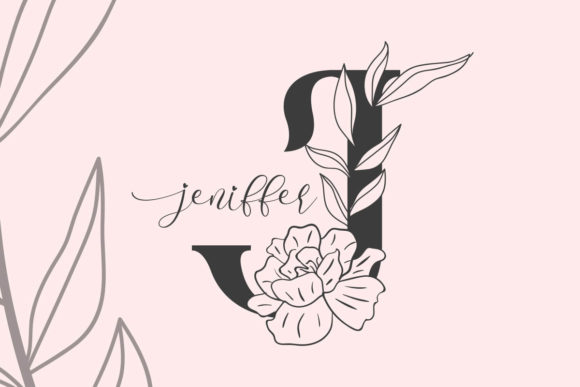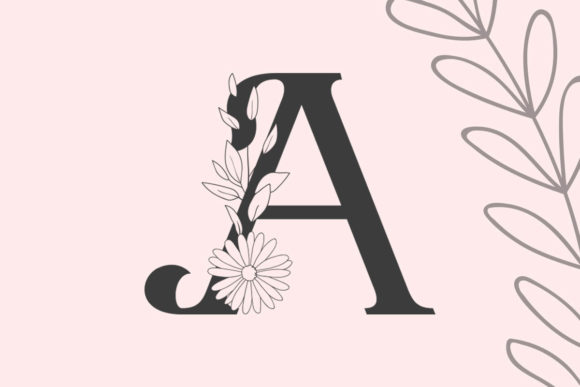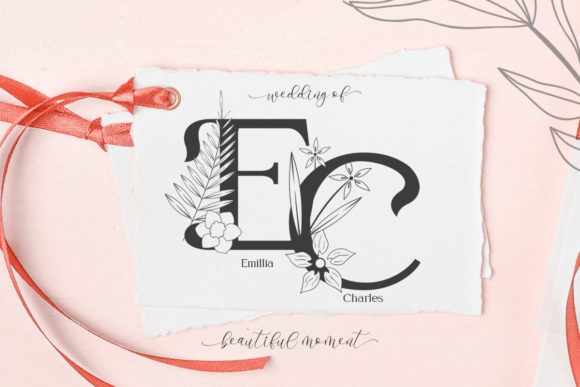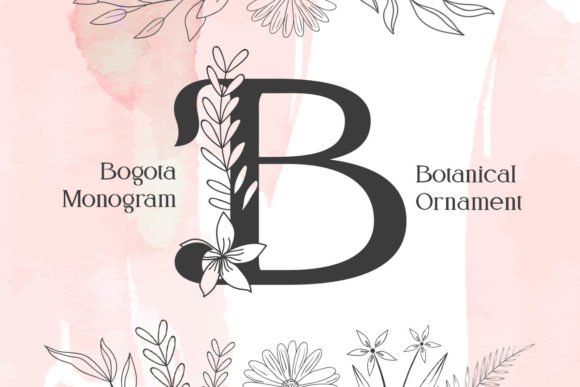
Introduction to Bogota Monogram Font
Bogota Monogram is a gorgeous monogram font.
It features flower-themed characters that will add a romantic touch to your projects Fall in love with its authentic feel and use it to create gorgeous wedding invitations, beautiful stationary art, eye-catching social media posts, and cute greeting cards.
Key Features of Bogota Monogram Font
Why Choose Bogota Monogram Font?
Bogota Monogram Font offers exceptional quality and versatility, making it a valuable addition to your design toolkit. Whether you’re creating for personal projects or commercial use, Bogota Monogram Font delivers professional results.